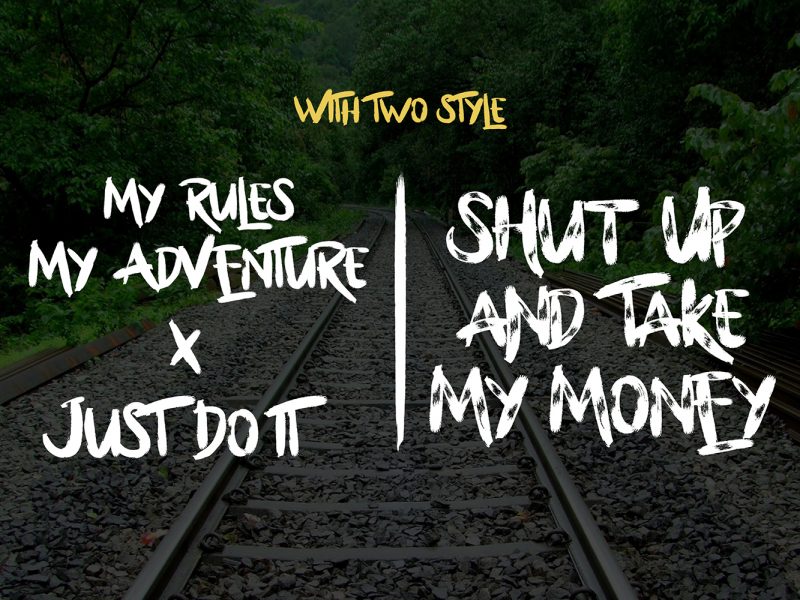
Bllody Rainan is a brush font with style. suitable to create any branding, product packaging, invitation, qoutes, t shirt, label poster etc. Hello, and thank you for downloading this font. This font is demo version.If you want download full version? please click the link below. and visit my store for more great fonts .
Bllody Rainan is a Brush typeface font with two style regular and rough inspired from watercolor splash. suitable to create any branding, product packaging, invitation, qoutes, t shirt, label poster etc..
Hello I'm really excited to introduce Bllody Rainan is a Brush typeface font with two style regular and rough inspired from watercolor splash. suitable to create any branding, product packaging, invitation, qoutes, t shirt, label poster etc Whats Included? Bllody Rainan.ttf Bllody Rainan Italic.ttf Bllody Rainan.